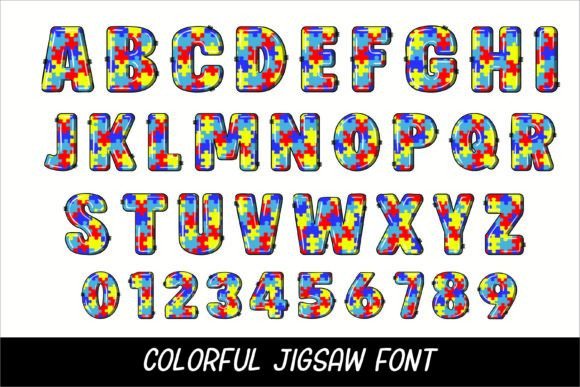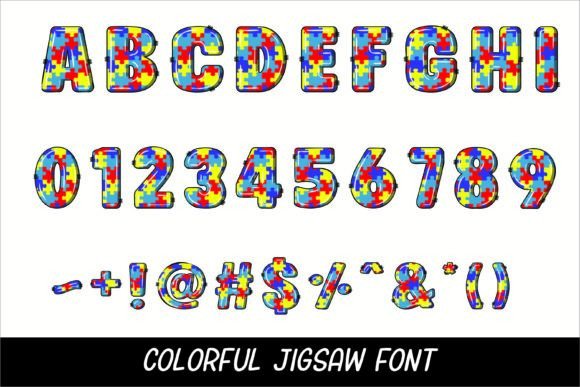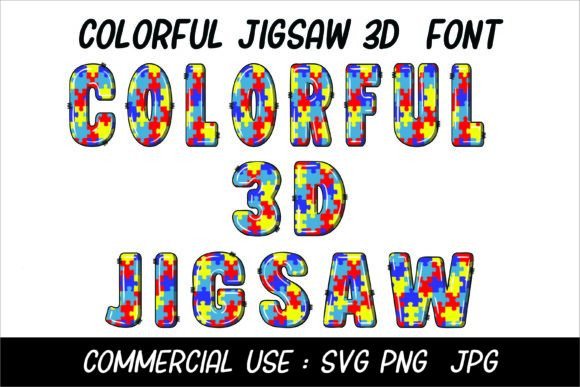
Introducing Colorful 3D Jigsaw Font: A Vibrant and High-Impact Display Font
Are you tired of using the same old fonts for your designs? Look no further! Colorful 3D Jigsaw Font is here to revolutionize your creative projects with its incredibly vibrant and high-impact display font. This unique 3D typeface is meticulously designed as a collection of SVG, PNG, and JPG assets to bring maximum visual excitement to your designs.
A Standout Font for Childhood, Awareness, and Educational Themes
The Colorful 3D Jigsaw Font features a striking, multi-colored puzzle piece pattern embedded within bold, rounded letterforms. This distinctive design instantly makes it a standout for projects focused on childhood, awareness, or educational themes. Whether you’re creating custom sublimation prints, educational materials, party decorations, or digital banners, this font is sure to grab attention and leave a lasting impression.
No Complex Coloring or Layering Required
One of the best things about the Colorful 3D Jigsaw Font is that it eliminates the need for complex coloring and layering. The exceptional color and depth of the font make it a powerful and fun tool for rapid design creation. With this font, you can create stunning designs in no time, without the hassle of tedious coloring and layering.
The Colorful 3D Jigsaw Font is ideal for designers and crafters who need to deliver bold, cheerful, and instantly recognizable messages. Its commercial-use friendly formats ensure seamless integration into various software, making it a premier choice for designers. Whether you’re a professional designer or a crafter, this font is sure to take your designs to the next level.
Key Features of Colorful 3D Jigsaw Font
- Incredibly vibrant and high-impact display font
- Striking, multi-colored puzzle piece pattern embedded within bold, rounded letterforms
- Ideal for childhood, awareness, or educational themes
- No complex coloring or layering required
Use Cases for Colorful 3D Jigsaw Font
The Colorful 3D Jigsaw Font is versatile and can be used for a variety of projects, including:
- Custom sublimation prints
- Educational materials
- Party decorations
- Digital banners
- Any project that requires a bold, cheerful, and instantly recognizable message
Why Choose Colorful 3D Jigsaw Font?
There are many reasons why you should choose the Colorful 3D Jigsaw Font for your next project. Here are a few:
- Unique and eye-catching design
- Easy to use and integrate into various software
- No complex coloring or layering required
- Ideal for a variety of projects and themes
In conclusion, the Colorful 3D Jigsaw Font is a vibrant and high-impact display font that is sure to take your designs to the next level. Its unique and eye-catching design, ease of use, and commercial-use friendly formats make it a premier choice for designers and crafters. Whether you’re creating custom sublimation prints, educational materials, party decorations, or digital banners, this font is sure to grab attention and leave a lasting impression.